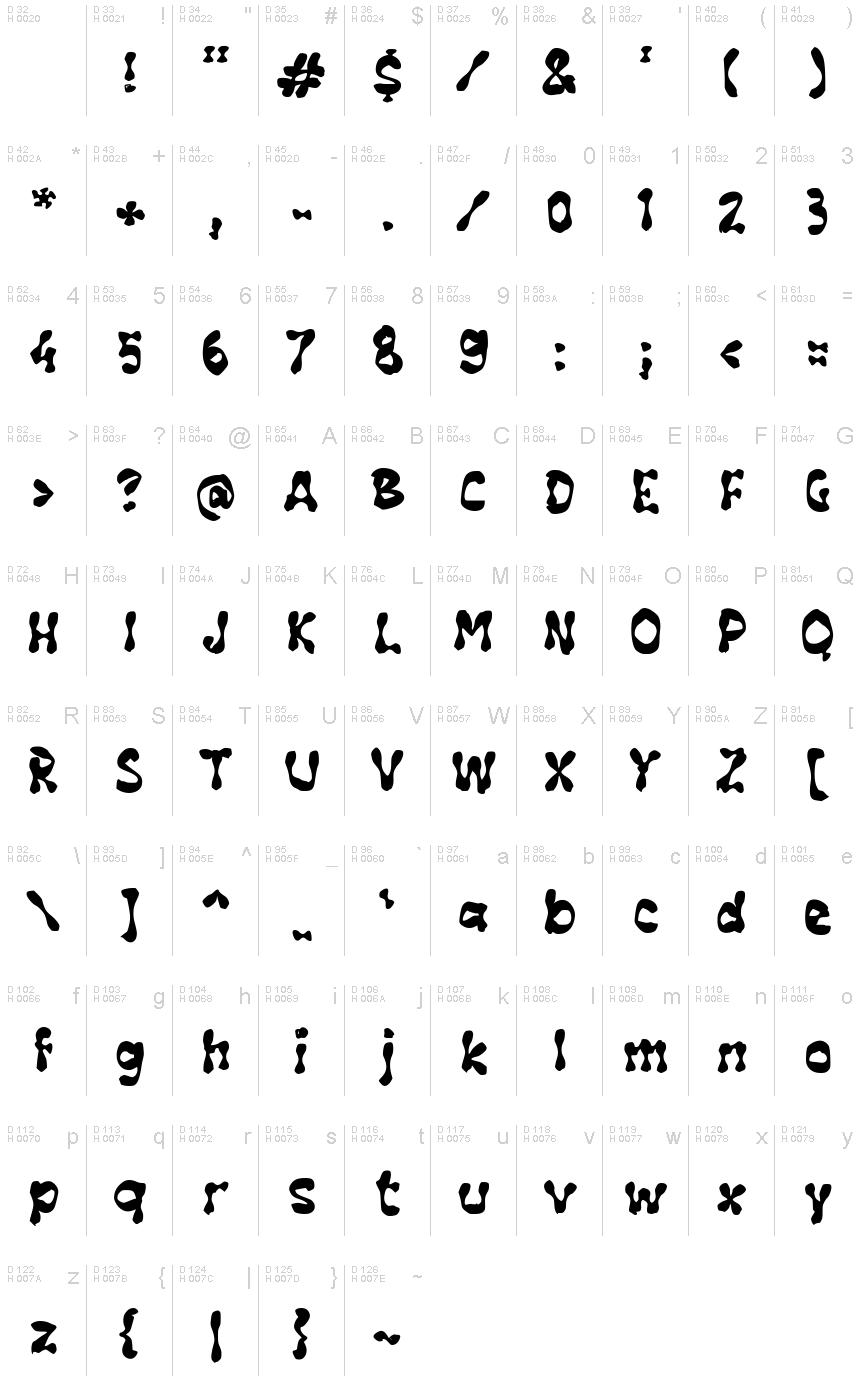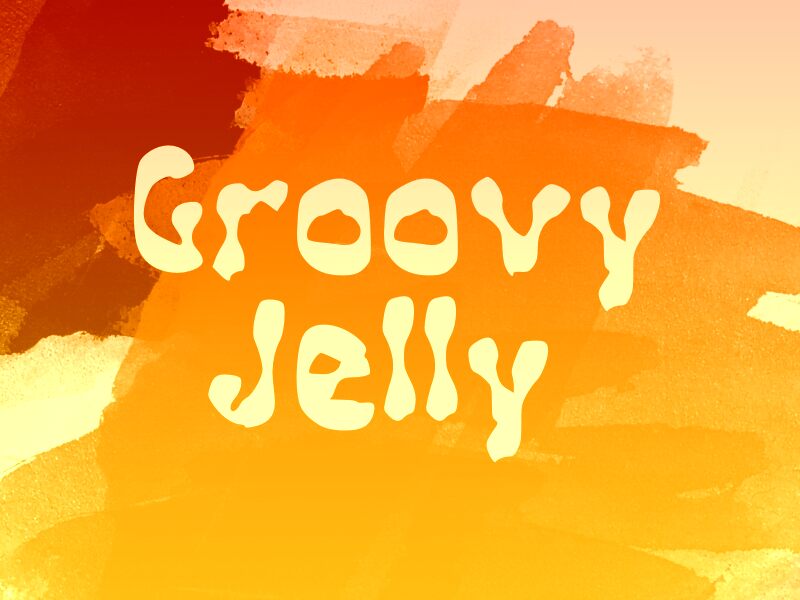
Groovy Jelly
Groovy Jelly, a striking display font created by wep, captivates with its bold, playful aesthetic. This dynamic typeface boasts an organic, undulating silhouette that evokes a sense of whimsy and movement. The irregular, fluid letterforms seamlessly blend together, creating a cohesive and visually engaging design that stands out from the crowd.
Groovy Jelly's versatility makes it a compelling choice for a wide range of design applications. Its bold presence lends itself well to branding, packaging, and editorial layouts, where it can command attention and add a touch of playfulness. Additionally, the font's unique character would shine in event materials, product packaging, and even digital interfaces, infusing any project with a sense of energy and character.